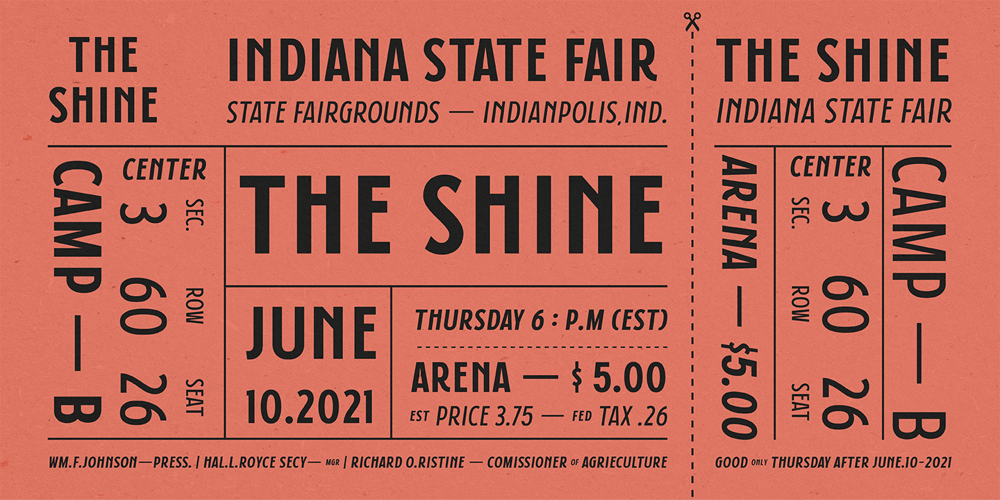
Rosign Font Family was designed by Adil Budianto and published by Surotype. Rosign contains 4 styles and family package options. Rosign is a display typeface. Comes in two styles and two weight, Rosign very perfect for retro or vintage nuances such as Signage, logotype, movie title, headlines, book cover, beer label, packaging, prints or something else.To enable the opentype stylistic alternates, you need a program that supports opentype features.